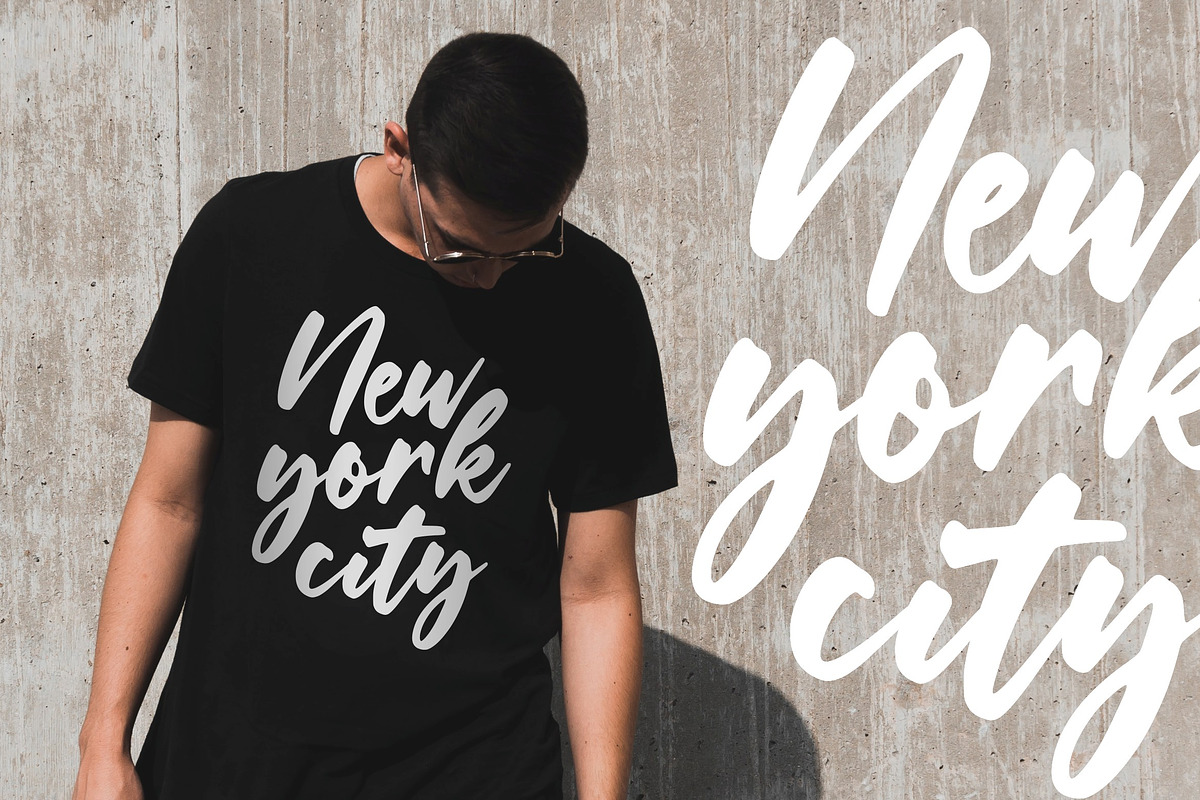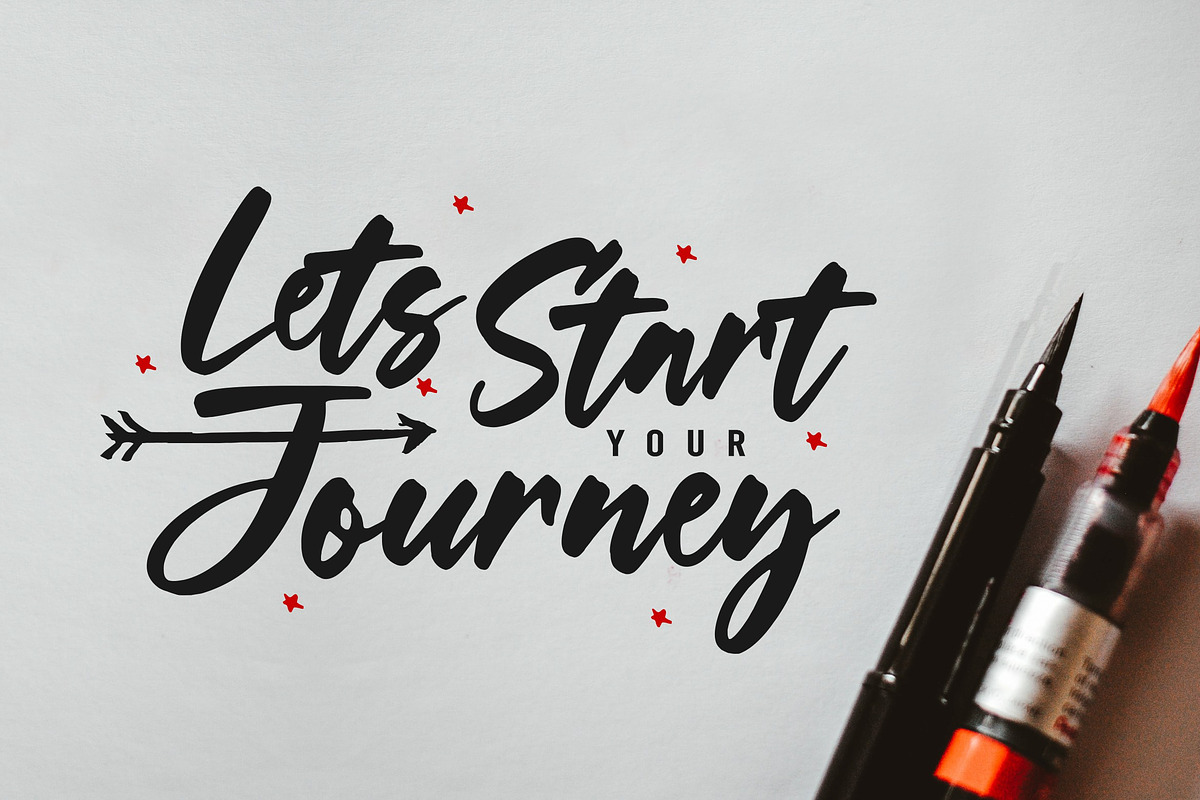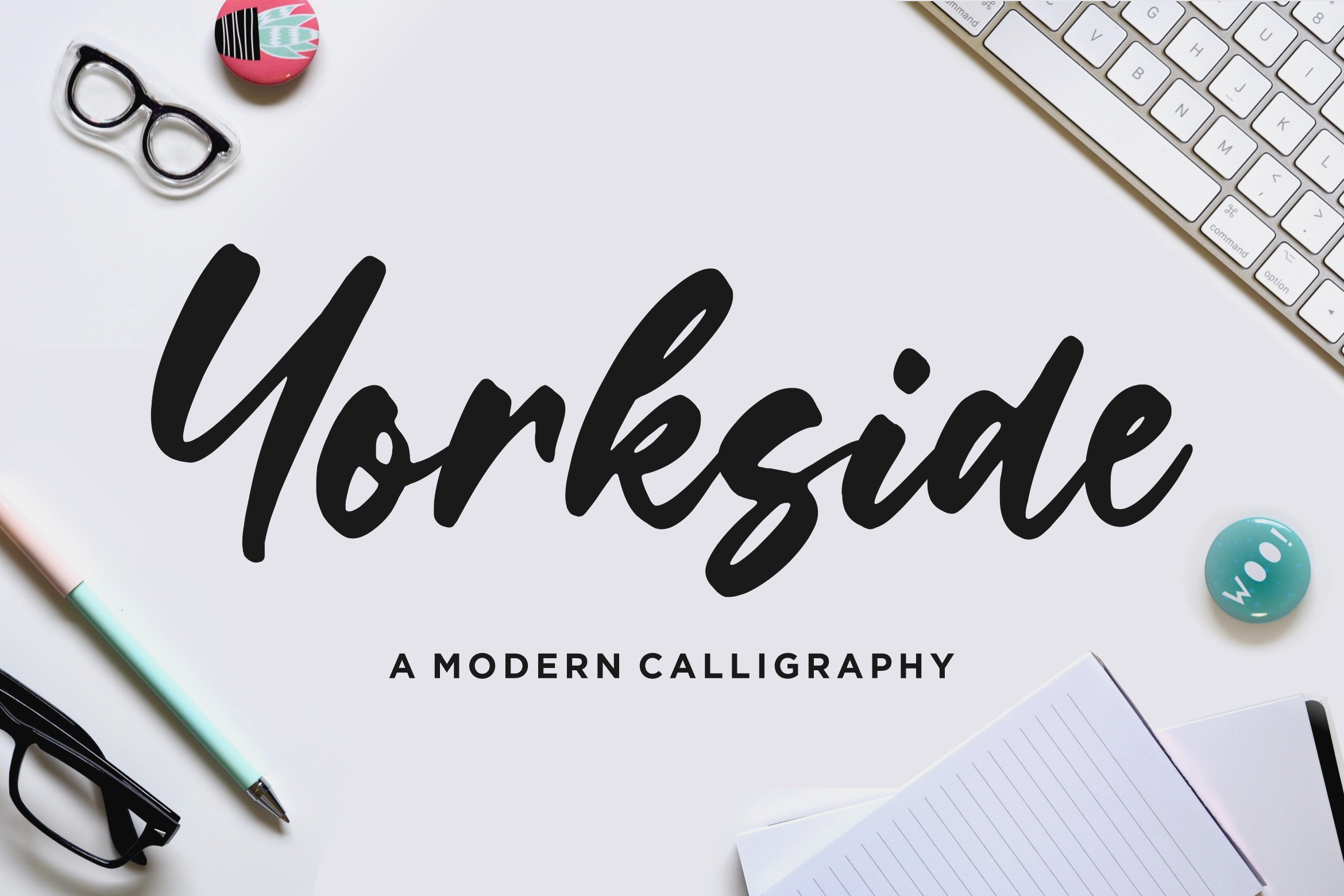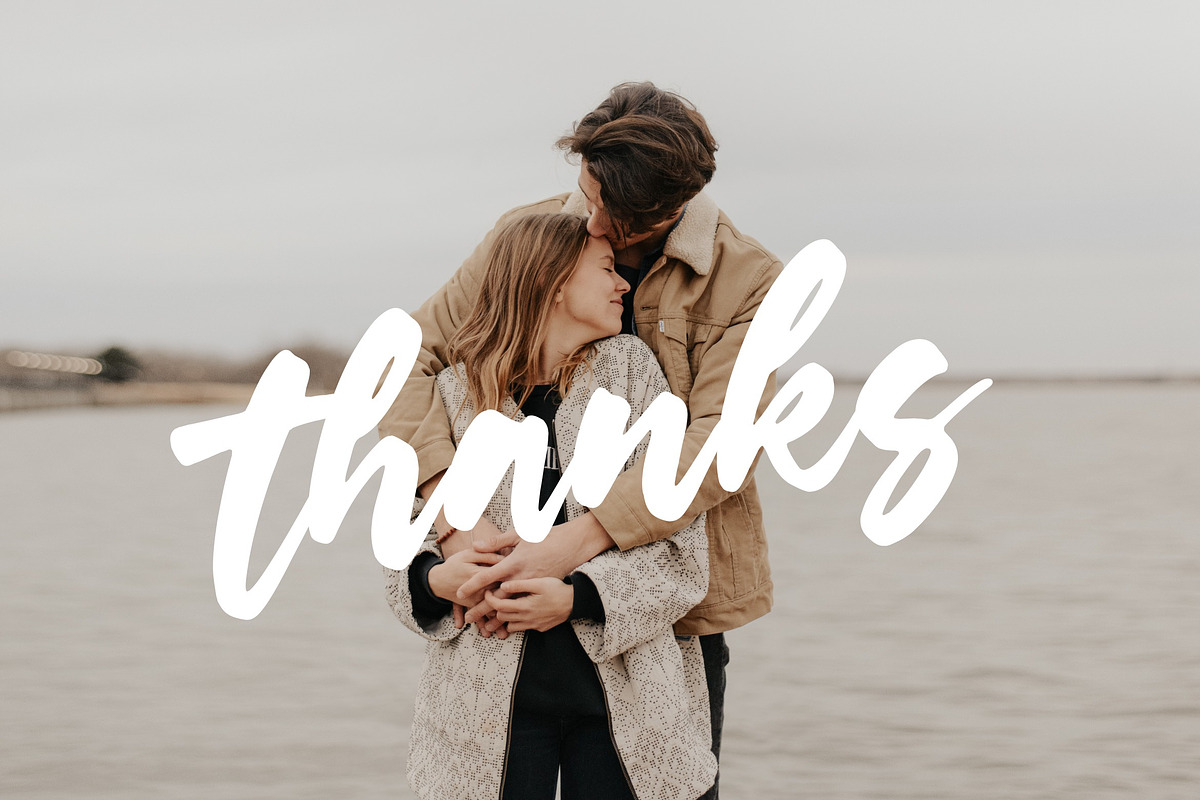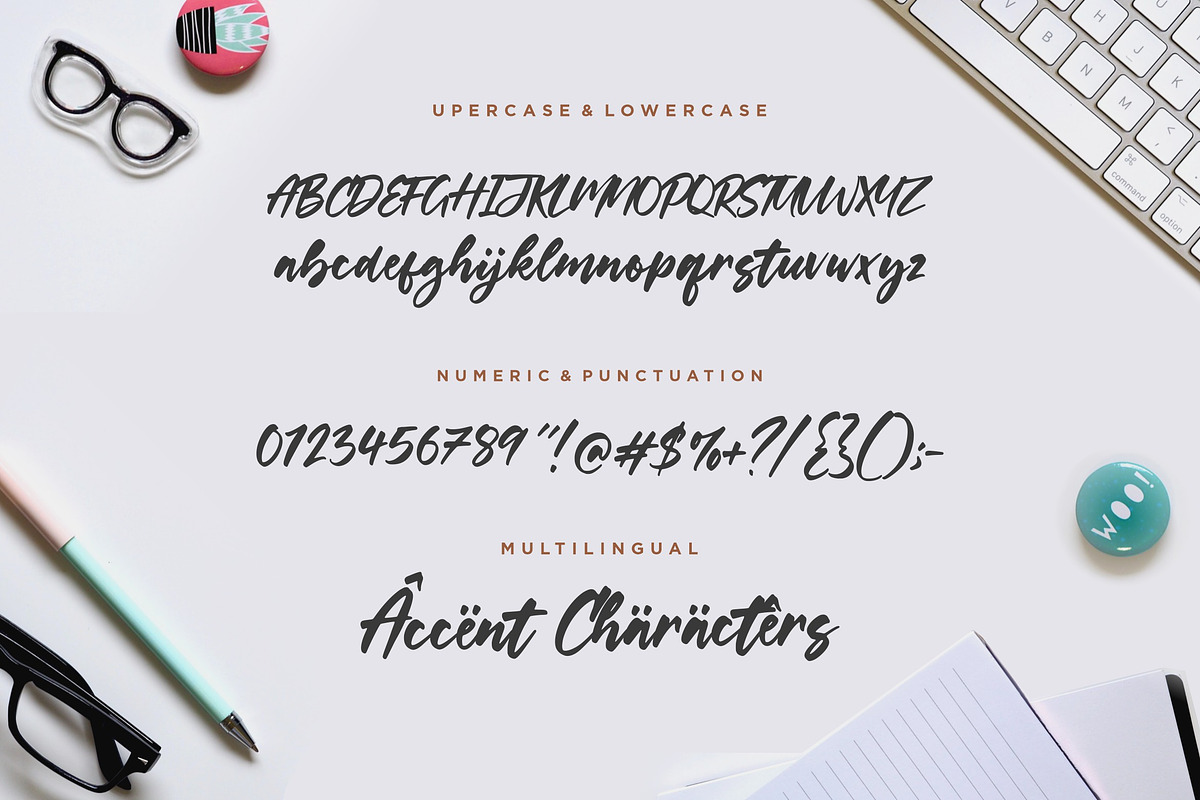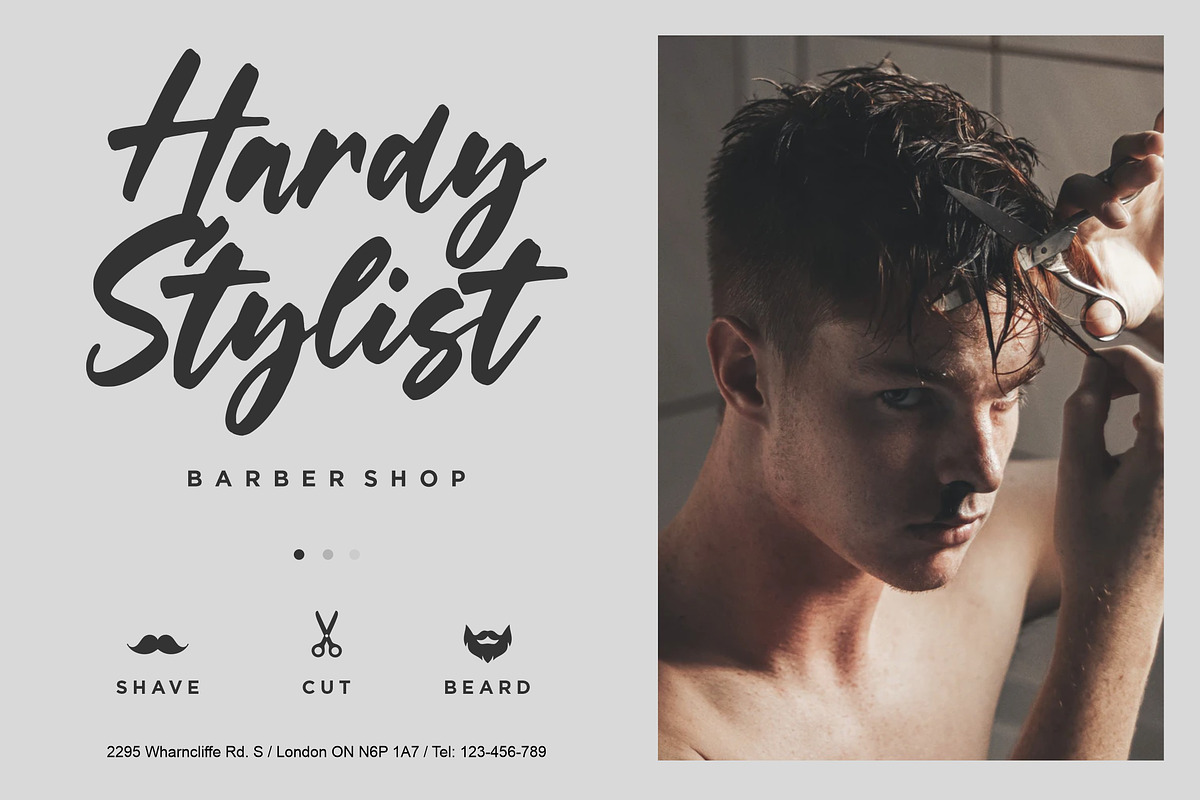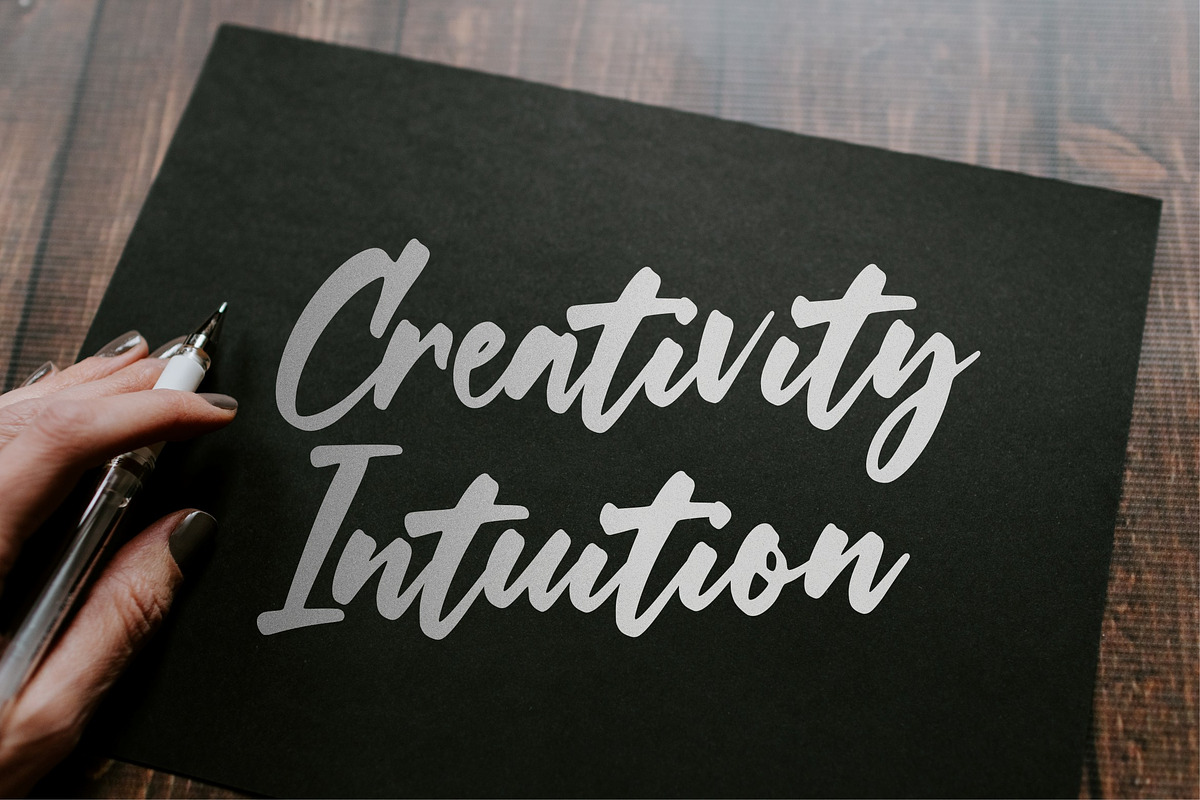
Yorkside - Modern Calligraphy Font
Proudly Present, Yorkside Font
Yorkside is a cool, trendy and paint brushed handwritten font. It looks beautiful on a variety of designs requiring a personalized style, such as wedding invitations, thank you cards, weddings, greeting cards, logos and so on.